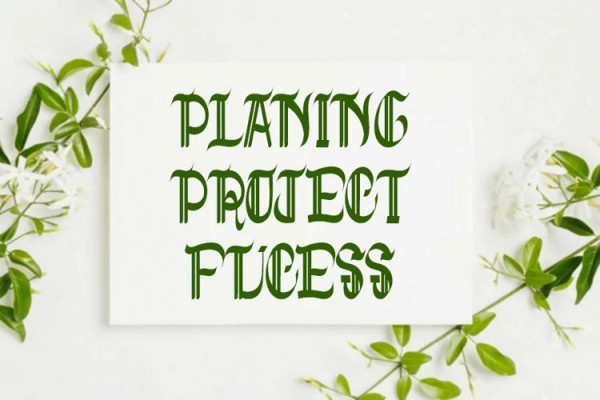
Purple Love Font
Purple Love Font is a flowing, beautiful and Lovely display font, described with a touch of elegance, perfect for your favorite projects. Fall in love with its completely different and timeless style and can use it to create wall designs, logos, wedding invitations, stationery, product labels, photography and much more.